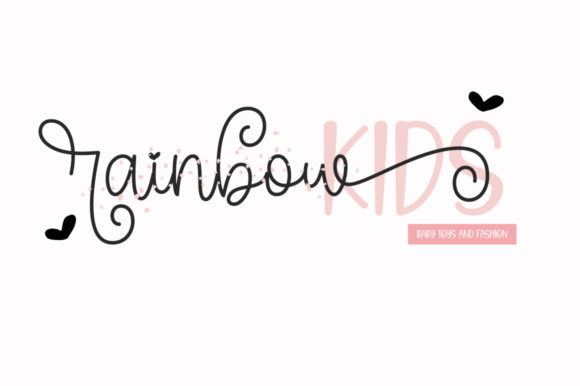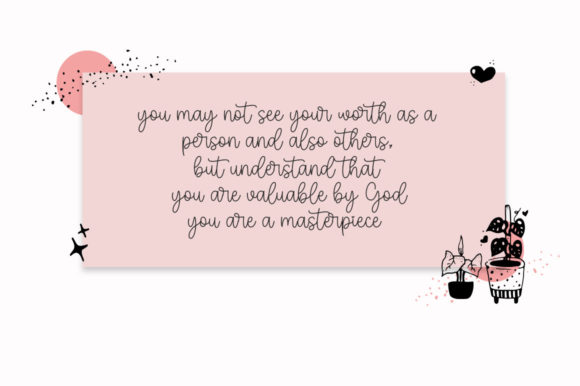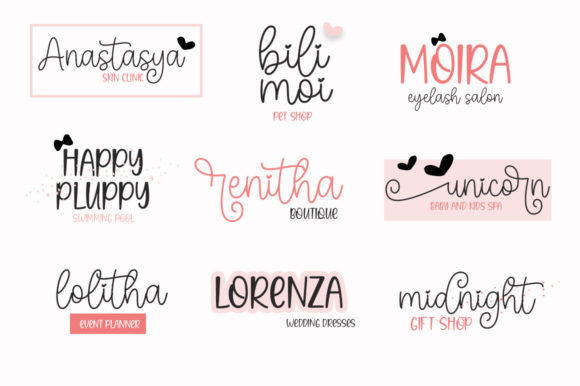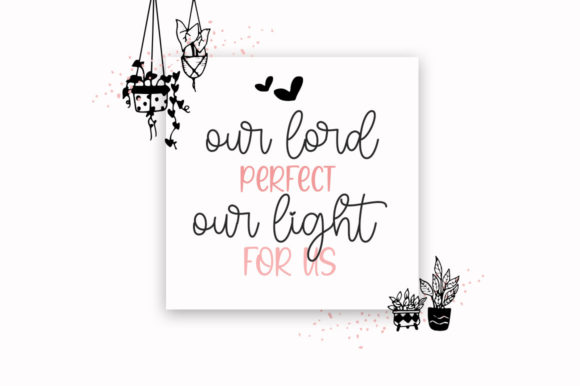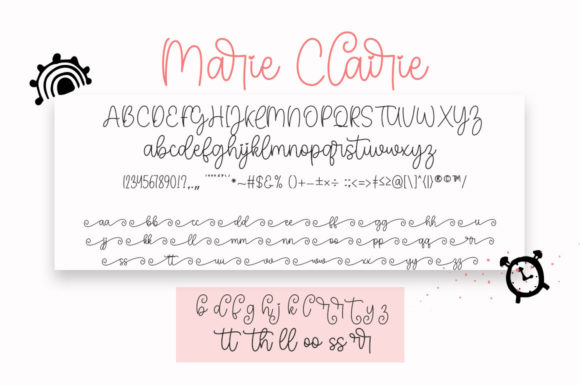
Introduction to Marie Clairie Font
Have you ever found yourself in the midst of a creative project, staring at a blank page or canvas, and suddenly, the perfect font pops into your head? That’s exactly what happened to me when I stumbled upon the stunning Marie Clairie Font. This beautiful pair of fonts is designed to complement each other, making it a game-changer for any design project.
As a designer, I can attest to the importance of having high-quality design resources at your fingertips. The Marie Clairie Font is no exception, offering a range of versatile styles that can elevate any creative project. Whether you’re working on a digital design, a craft project, or a design for a transparent background, this font is sure to bring a touch of elegance and sophistication.
Key Features of Marie Clairie Font
- Transparent background for seamless integration with any design
- Includes a wide range of characters, including uppercase and lowercase letters, numbers, and punctuation marks
- Designed with a unique, elegant aesthetic making it perfect for wedding invitations, greeting cards, and other special occasions
Honest Review: Marie Clairie Font
I recently had the chance to work with the Marie Clairie Font for a creative project and I must say, it’s a great addition to any design resource. One thing that stands out is its high quality and beautiful aesthetic, making it perfect for a variety of design applications.
What works well: ✨ The font’s elegant and whimsical feel makes it ideal for projects that require a touch of sophistication. The transparent background also gives designers a lot of flexibility when it comes to combining it with other design elements. The free download is also a huge plus, making it accessible to designers of all levels.
Here are some key features of the Marie Clairie Font:
- High-quality design with a unique aesthetic
- Transparent background for easy combination with other elements
- Perfect for creative projects that require a touch of elegance
⚠️ One potential limitation is that the font may not be as versatile as some other design resources, and its elegant feel may not be suitable for all types of projects. However, for the right creative project, it’s a fantastic choice.
Overall, I’m impressed with the Marie Clairie Font and would definitely consider using it again in the future. Its unique design and high quality make it a valuable addition to any design resource.
The Marie Clairie Font is a high-quality, elegant script font perfect for creative projects that require a touch of sophistication. This versatile design resource features a transparent background, making it easy to customize and combine with other elements.
To get the most out of the Marie Clairie Font, try combining it with other design elements, such as illustrations or graphics, to create visually striking designs. You can also experiment with different font sizes, colors, and styles to add depth and interest to your designs.
Common Use Cases for Marie Clairie Font
The Marie Clairie Font is perfect for a variety of creative projects, including wedding invitations, baby announcements, and business cards. It’s also a great choice for designers who want to add a touch of elegance and sophistication to their designs.